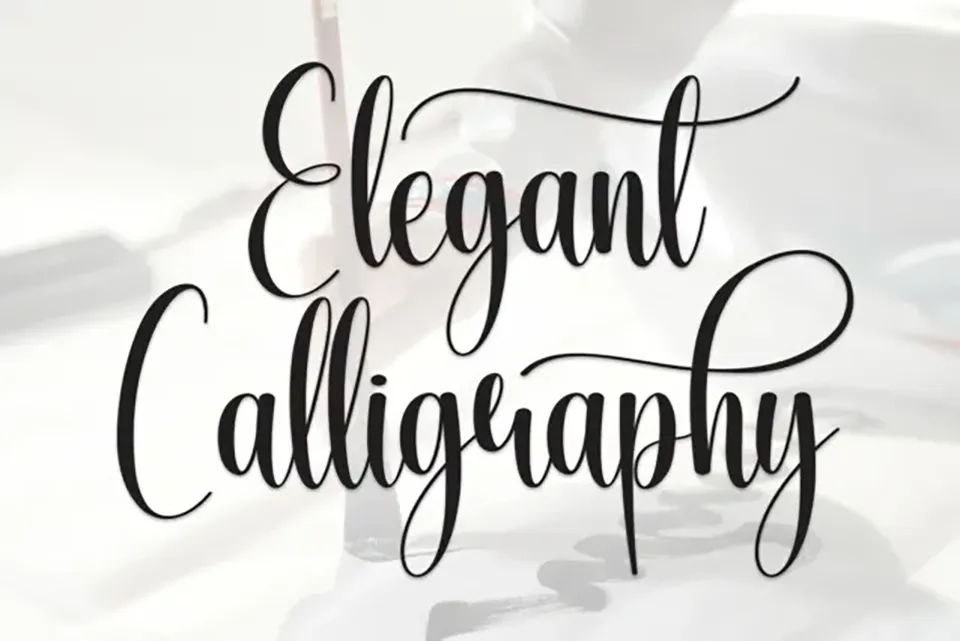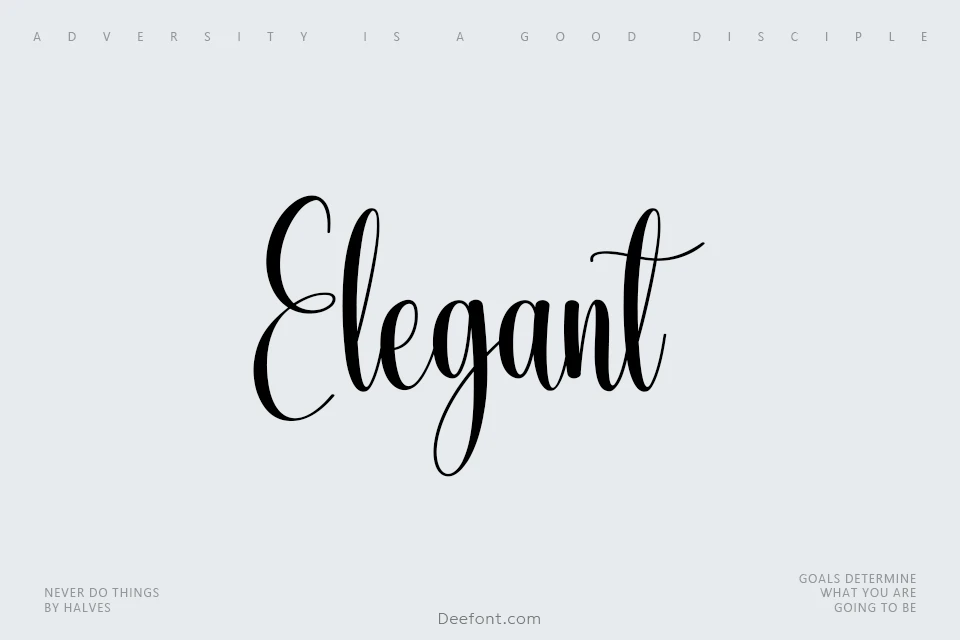
Elegant Calligraphy Font
Elegant Calligraphy Font is a font designed to bring timeless beauty and sophistication to your creations! With its flowing lines, delicate loops, and graceful swashes, this style adds a touch of magic to everything it touches. Perfect for wedding invitations, upscale branding, romantic quotes, or any project needing a sprinkle of refinement, Elegant Calligraphy turns ordinary text into art. Its enchanting curves and sophisticated charm make your designs feel instantly luxurious and personal. Let Elegant Calligraphy elevate your work with its captivating style and effortless charm!